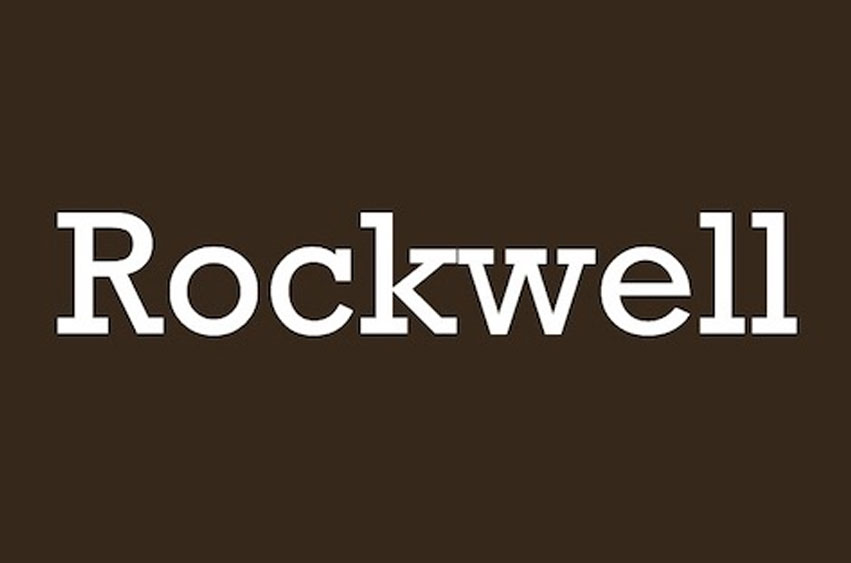
Rockwell Serif Font
Rockwell Serif Font is an open contemporary serif typeface. This basic font has a little bit of irregularity to add personality and can be used for both body copy and titles. It consists of all Latin characters (including accents), as well as punctuation, special characters, and numbers.
This serif font is a new modern serif typeface influenced by the modernist style. It has a very neutral look, thus this font has versatility for use in all kinds of professional design. Rockwell is a versatile font that was designed for classic, strong branding. It’s fit suited for clothing designs, branding, videos, quotes, product packaging, logos, magazines, weddings, websites, and so on.